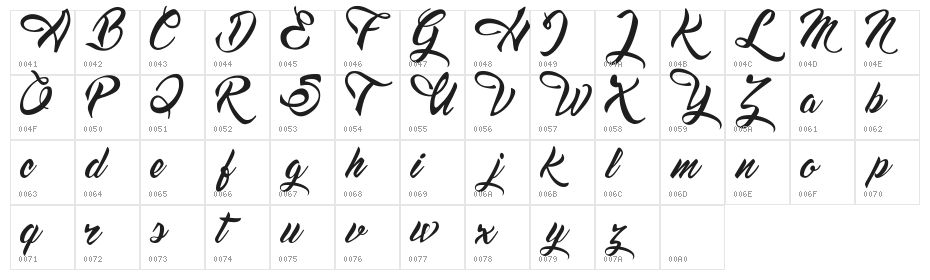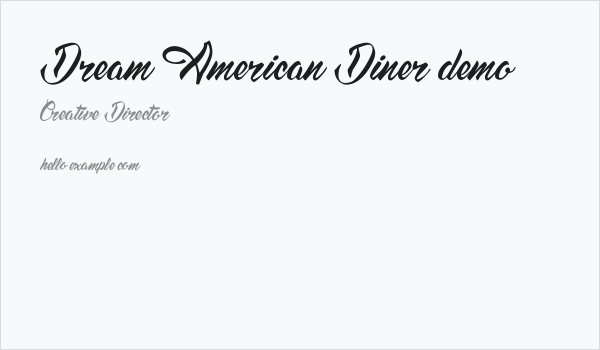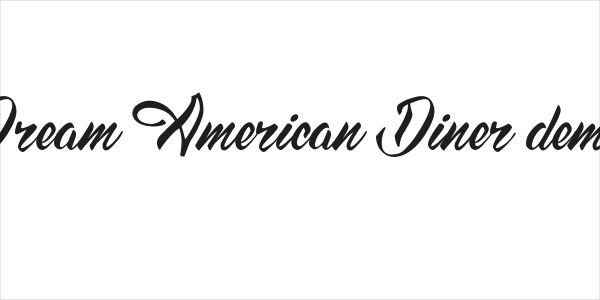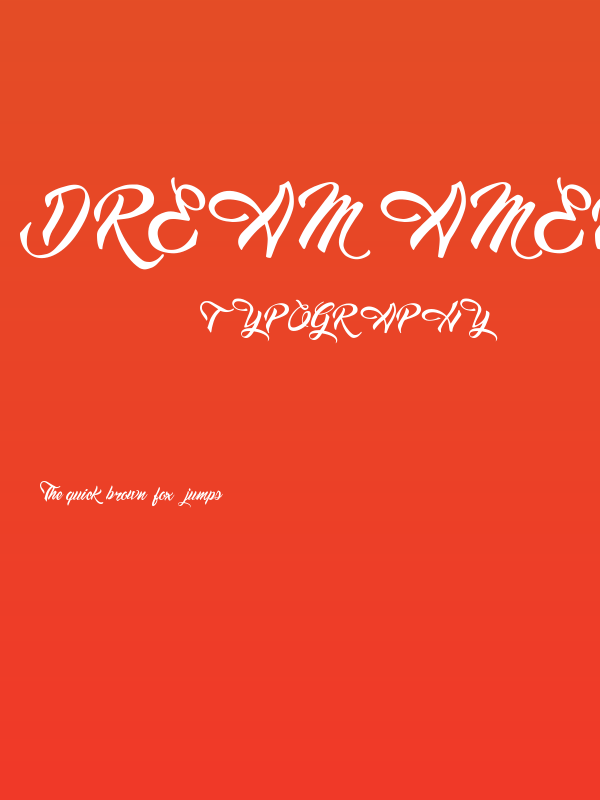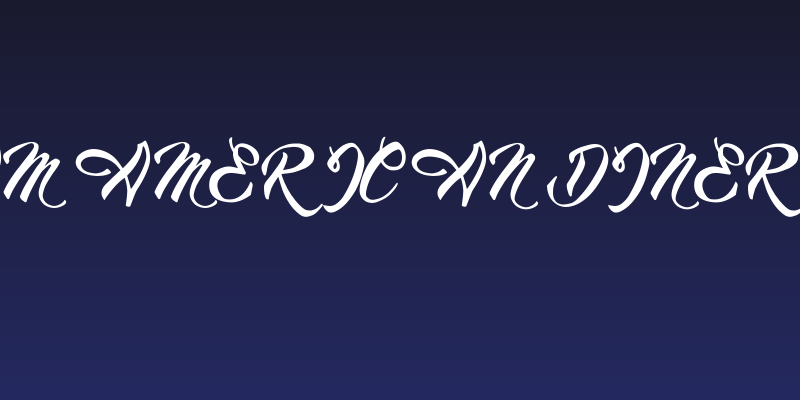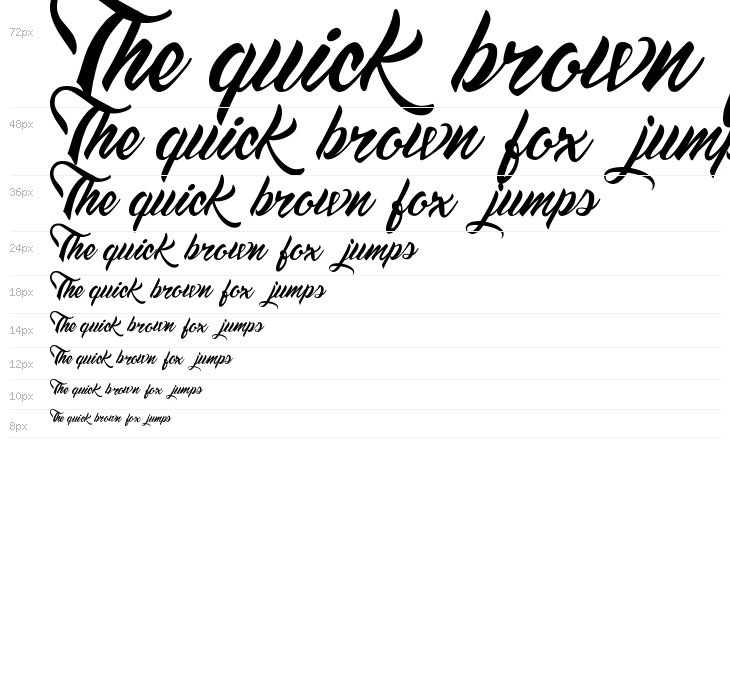
Dream American Diner demo Font
Dream American Diner demo Description
This font exudes a dynamic and energetic style, characterized by its bold, flowing script that mimics the fluidity of handwriting. The uppercase letters are particularly ornate, with intricate loops and swirls that add a touch of elegance and flair. The lowercase letters maintain a consistent style, offering a harmonious blend of curves and angles that create a cohesive look. The font's bold weight and high contrast between thick and thin strokes make it highly legible while retaining its decorative appeal. Its overall style is reminiscent of vintage American diner signage, evoking a sense of nostalgia and charm.
| Proposed Projects | Ideal for retro-themed branding, restaurant menus, vintage posters, and nostalgic advertising campaigns. |